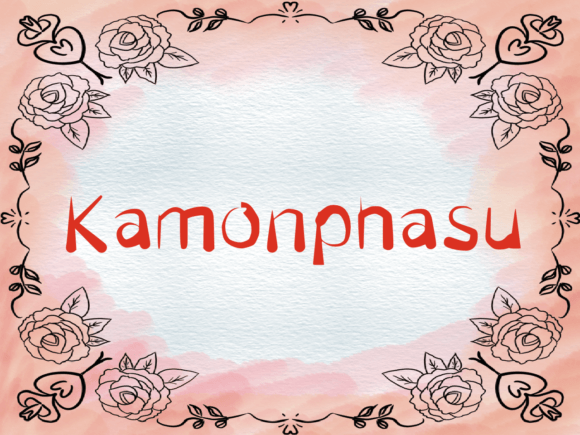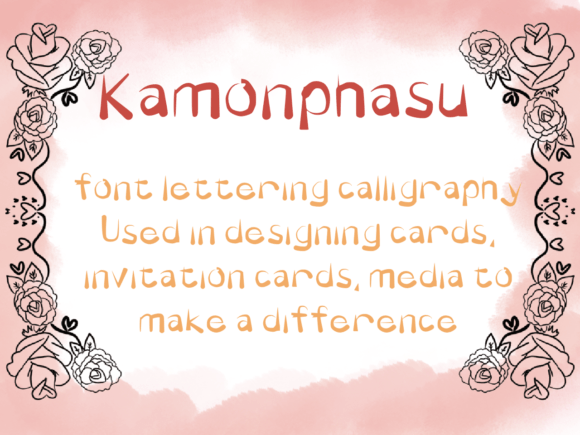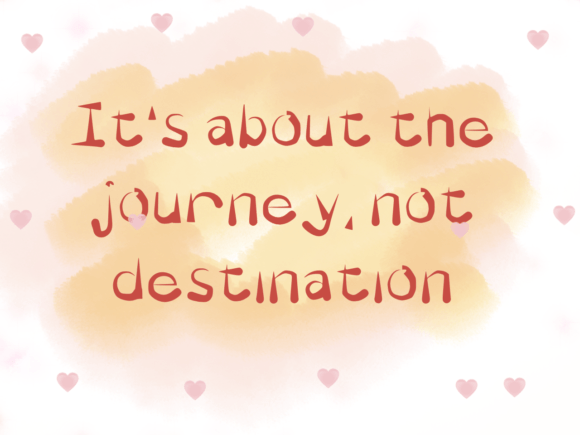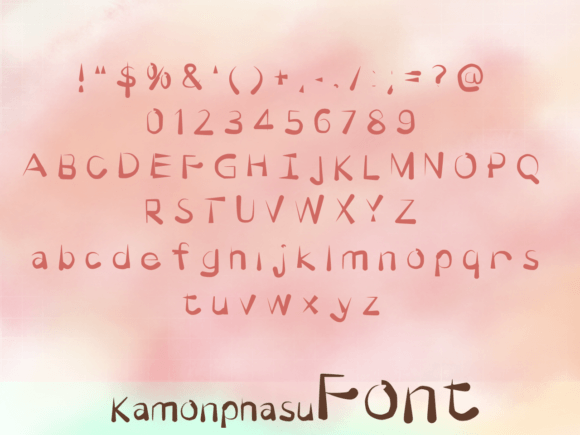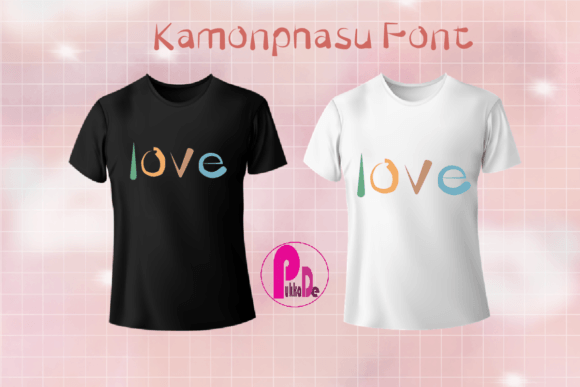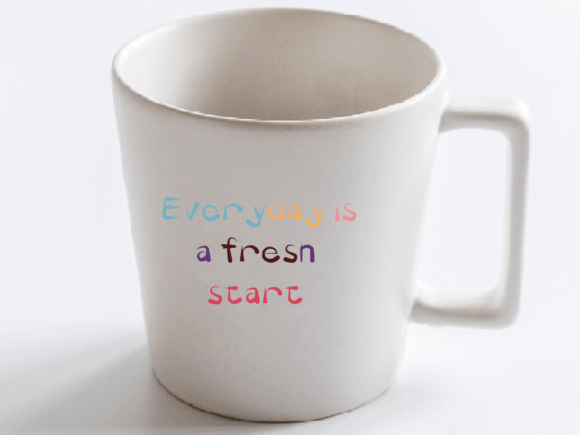
Kamonphasu Font
About Kamonphasu Font
Kamonphasu font is a unique handwritten typeface that brings a quirky and authentic touch to your designs. Its irregular and playful letterforms give it a distinctive character, making it stand out in any creative project. Whether you’re designing invitations, branding materials, or digital art, Kamonphasu adds personality and originality that makes your work memorable.
Quirky and Authentic Lettering
The charm of Kamonphasu font lies in its quirky letter shapes. Each character has an authentic, hand-drawn feel, offering a refreshing break from conventional fonts. This uniqueness makes Kamonphasu ideal for designers who want to inject fun and individuality into their projects.
Versatile for Many Creative Uses
Kamonphasu font fits perfectly with a wide range of design applications. Use it for crafts, social media graphics, logos, posters, or greeting cards. Its distinct style can also enhance editorial designs and packaging, giving your work a genuine and approachable look.
Adds Personality to Your Designs
By choosing Kamonphasu, you invite a sense of playfulness and creativity to your projects. The font’s unconventional shapes express originality, helping you communicate your ideas in a fresh and engaging way. This makes Kamonphasu an excellent choice for brands or projects that aim to be different and expressive.
Easy to Read, Fun to Use
Despite its quirky style, Kamonphasu maintains good readability. Its balanced forms ensure your text is clear, whether used in headlines or short passages. This balance between uniqueness and legibility makes it a practical and stylish font for various media.
Why Choose Kamonphasu Font?
If you want a handwritten font that breaks the mold and adds quirky charm, Kamonphasu is a perfect pick. It complements creative ideas with its authentic vibe and playful energy, helping your designs leave a lasting impression.